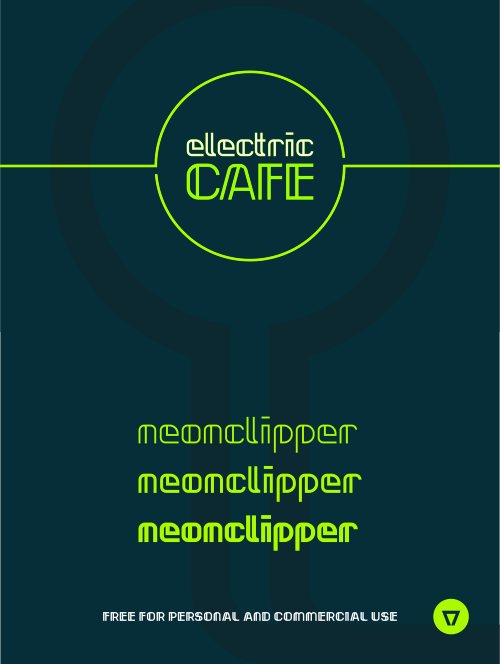
Font name: | Neonclipper |
Author: | NimaVisual |
Note by NimaVisual | |
Neonclipper is a modular experimental font. Good for signs, posters, flyers, etc, or anywhere you need unique looking font as support for your main text font. |